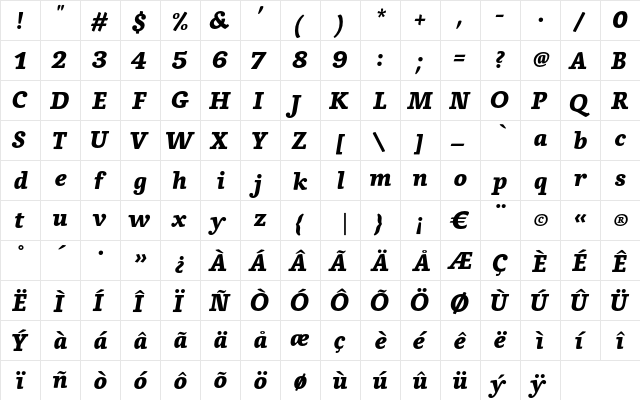
CarrefourSerif BoldItalic
Design Context for CarrefourSerif Typeface
CarrefourSerif brings classic typographic sensibility to the table — its serifs and measured letterforms reflect centuries of print heritage. Its italic angle brings a sense of urgency and motion to the letterforms. Its bold stroke weight gives it real presence on the page.
Pro Tip: Set CarrefourSerif with slightly loose tracking in headlines to let each letterform's detail read clearly at display sizes.